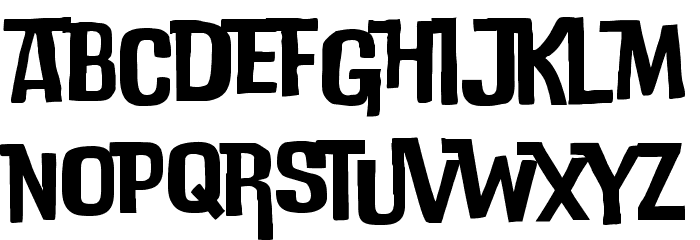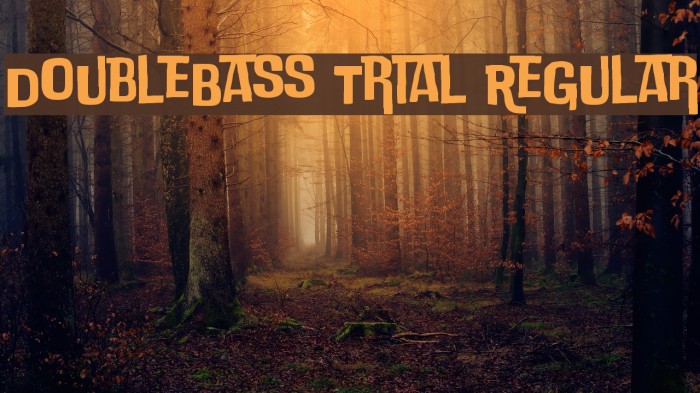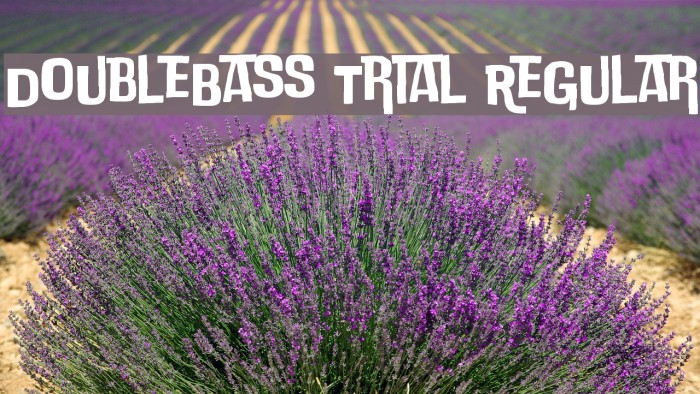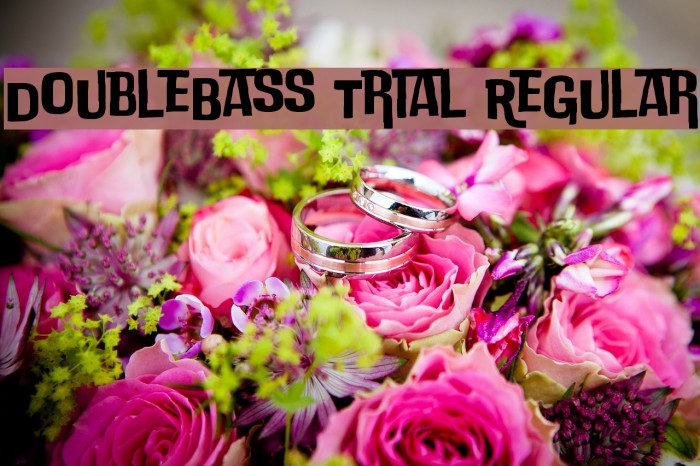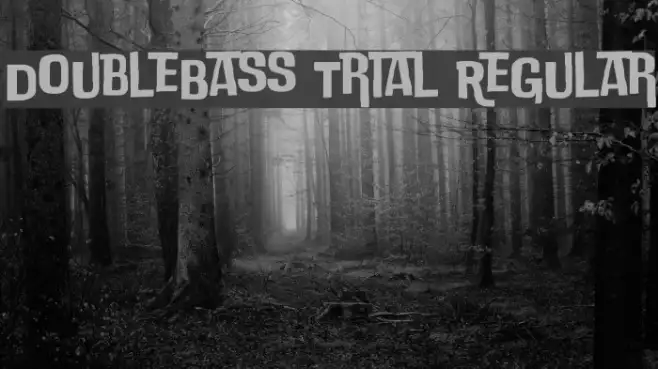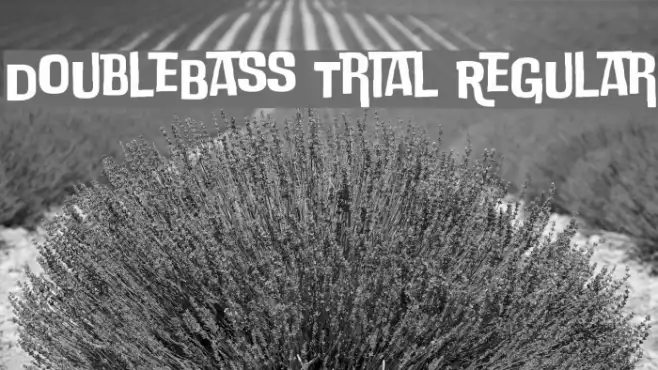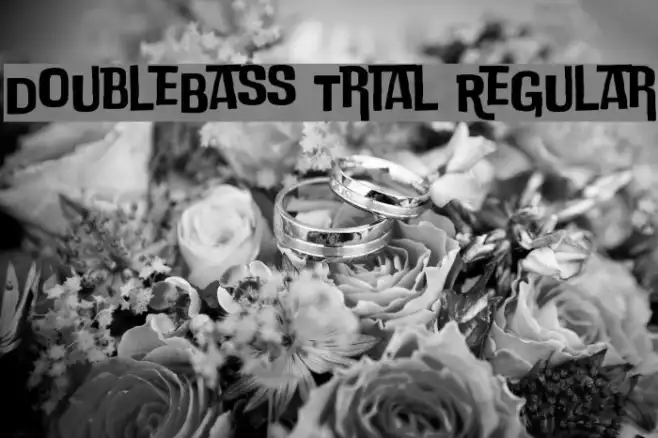
DoubleBass Trial Regular Font
This font features a bold and dynamic design with a strong presence. The characters are crafted with a unique blend of sharp angles and smooth curves, giving it a distinctive and energetic look. The uppercase letters are particularly striking, with a slightly condensed form that enhances their impact. The lowercase letters maintain the same boldness, ensuring consistency across text. The numerals and special characters are equally robust, making them stand out in any context. This font is perfect for projects that require a bold statement and a modern, edgy aesthetic.
A bold, dynamic font with sharp angles and smooth curves for a striking appearance.
- Proposed Projects: Ideal for branding, posters, headlines, and any design requiring a strong visual impact.